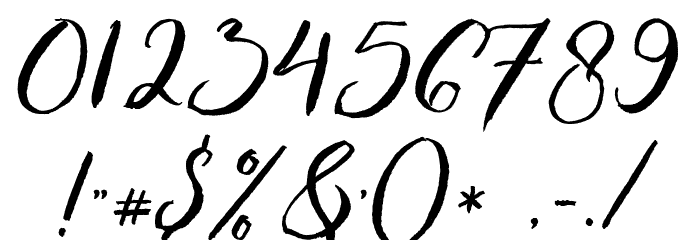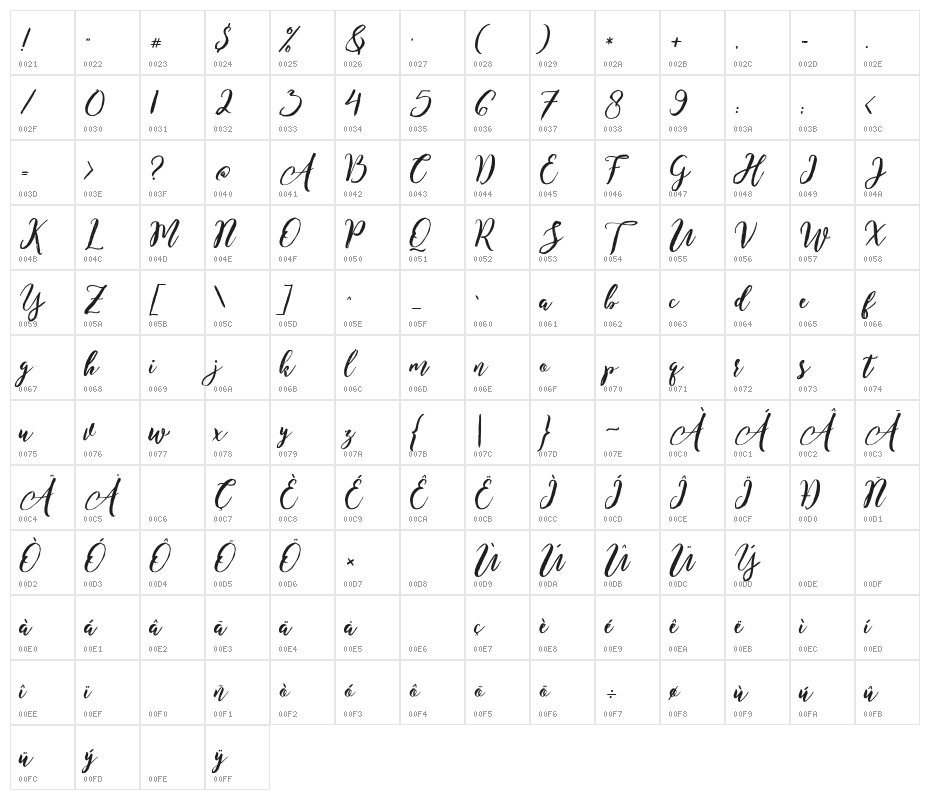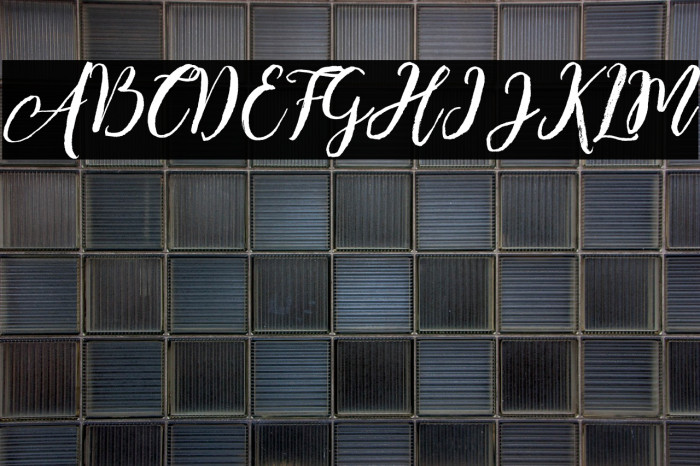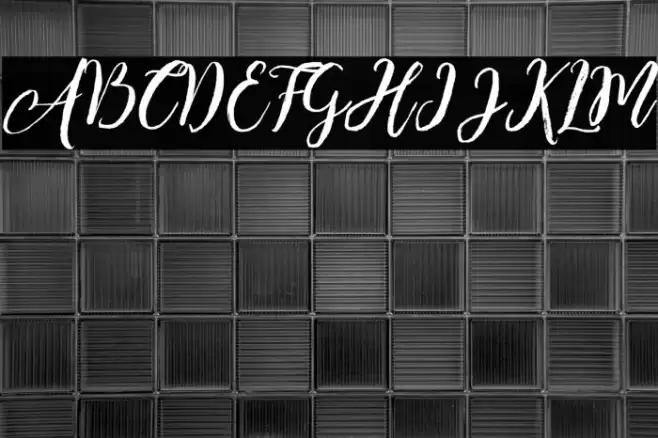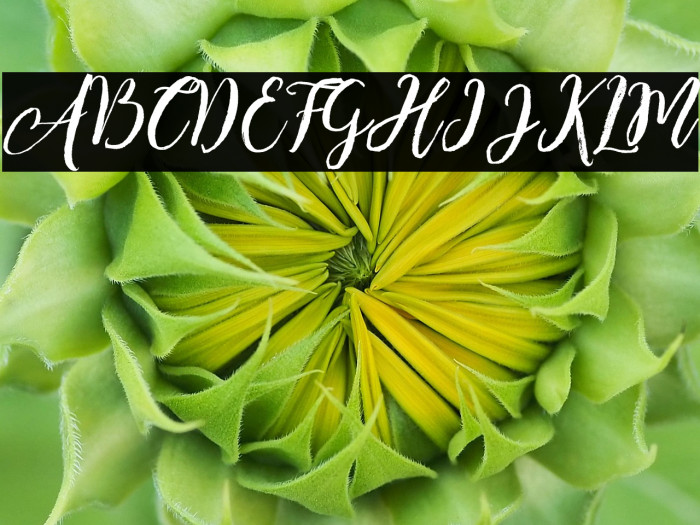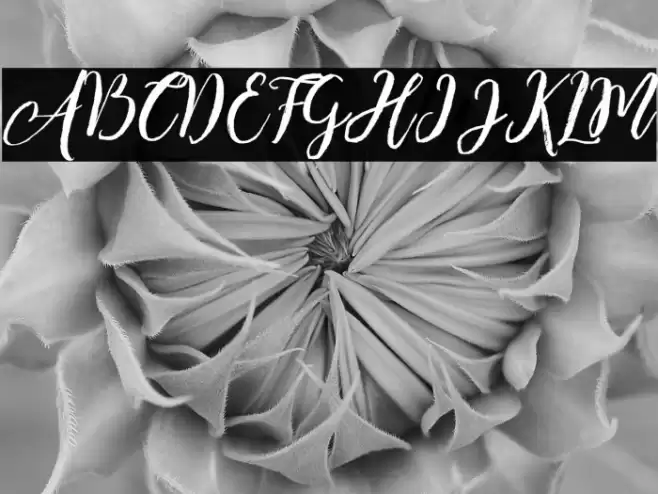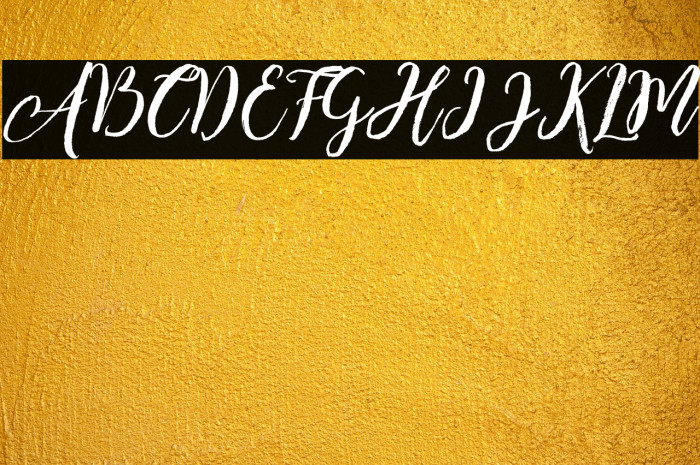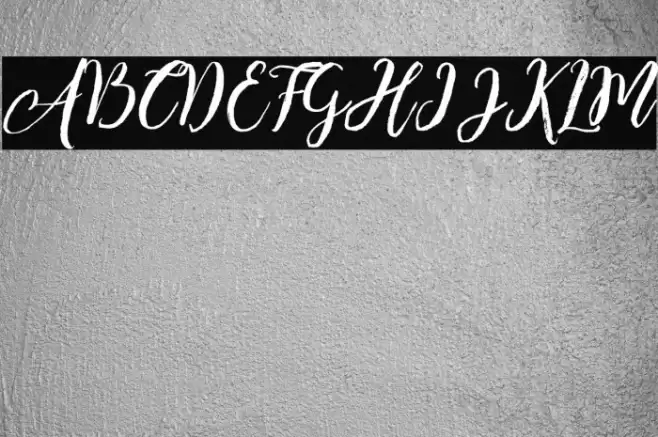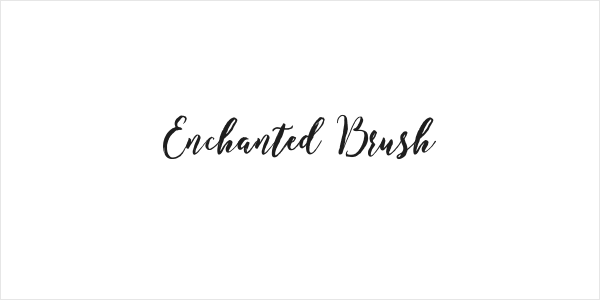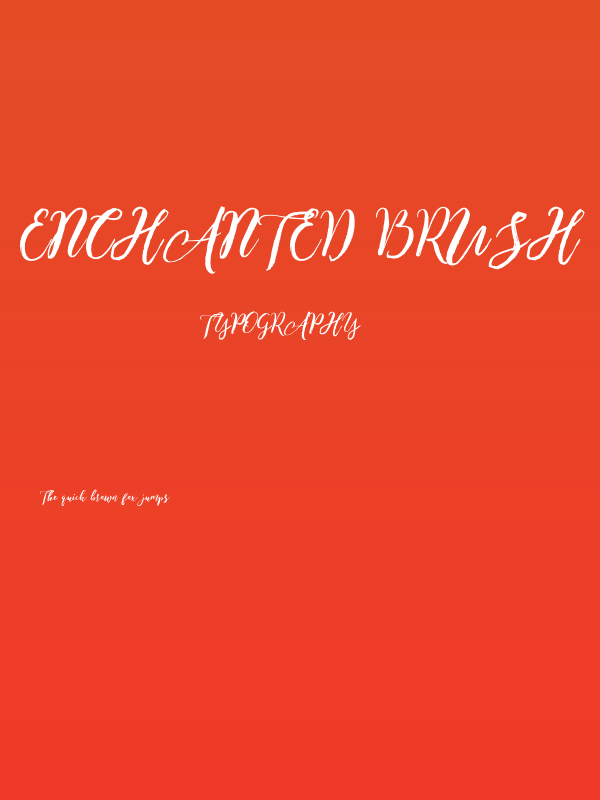
Enchanted Brush Font
Enchanted Brush Description
This font exudes a whimsical and artistic flair, characterized by its fluid, brush-like strokes that give it a hand-painted appearance. The uppercase letters are bold and dynamic, with varying stroke widths that add a sense of movement and energy. The lowercase letters maintain this fluidity, with elegant loops and curves that enhance its artistic style. Numbers and special characters are crafted with the same attention to detail, ensuring a cohesive look across all glyphs. The overall design is both expressive and versatile, making it suitable for a variety of creative applications.